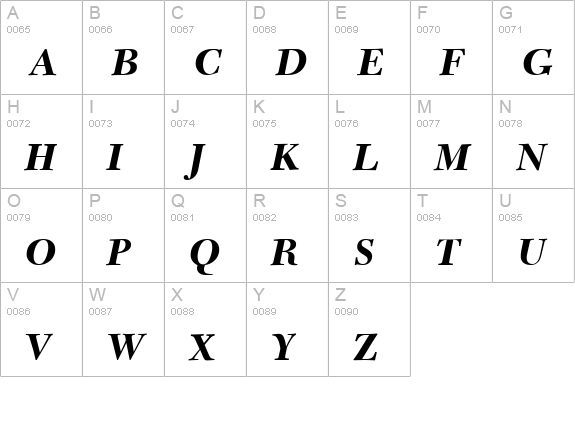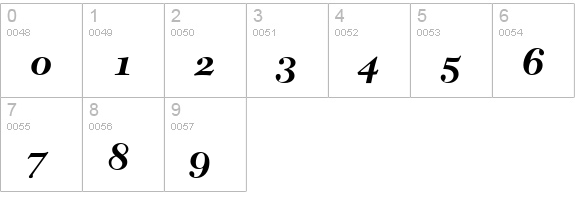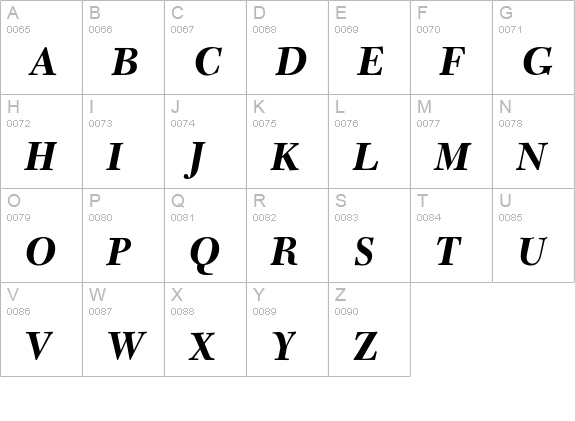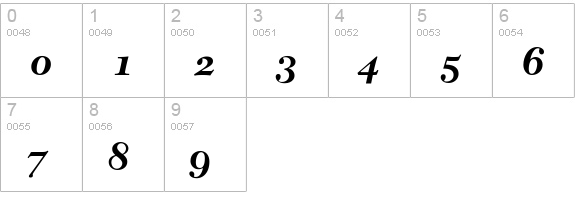
Tycoon SSi Bold Italic Old Style Figures Font Details
Tycoon SSi Bold Italic Old Style Figures is a strong, high-contrast, italic variant in the Tycoon typeface family \xE2\x80\x94 well suited to headlines, attention-grabbing titles, and strong calls-to-action.